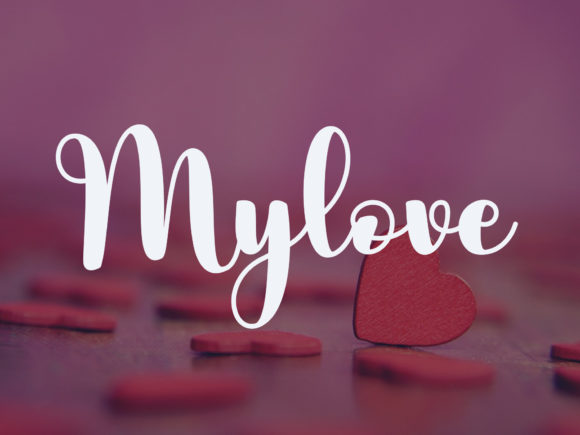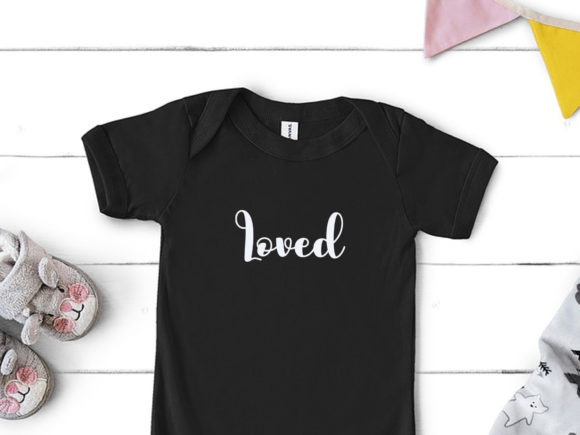
Myheart Font
db-ku.com - Script & Handwritten -- Myheart is a delicate handwritten font, carefully crafted for a cool and unique design. This font can be used for letters, invitations, food products, titles, and more.